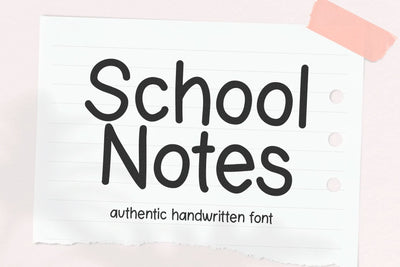
School Notes - Handwriting Font
School Notes is an authentic handwritten font!
This font is perfect for both teachers and crafters! Use this font for all of your craft projects, shirts, stickers, notes, quotes, posters and more!